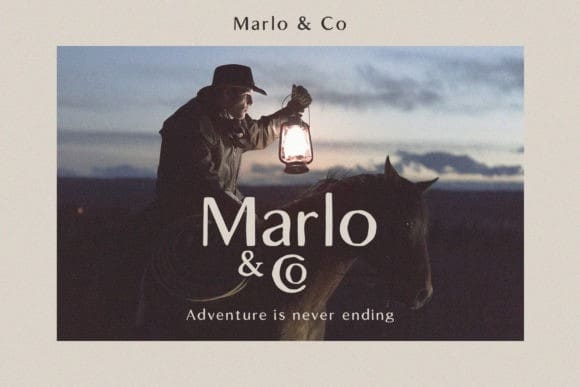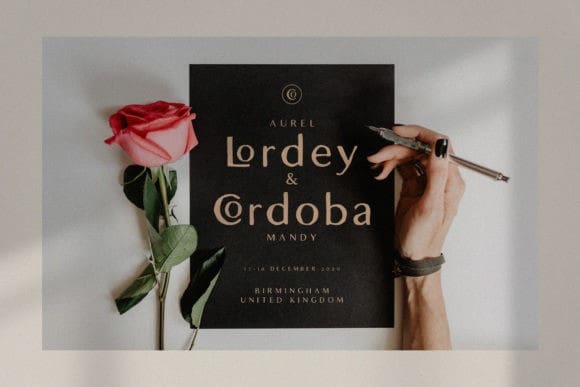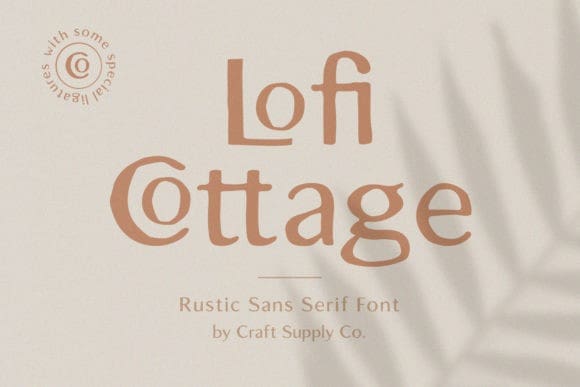
Lofi Cottage Font
Lofi Cottage Font is an experimental and rustic sans serif font with a beautiful, nostalgic feel. It will add a down-to-earth vibe to any design project!